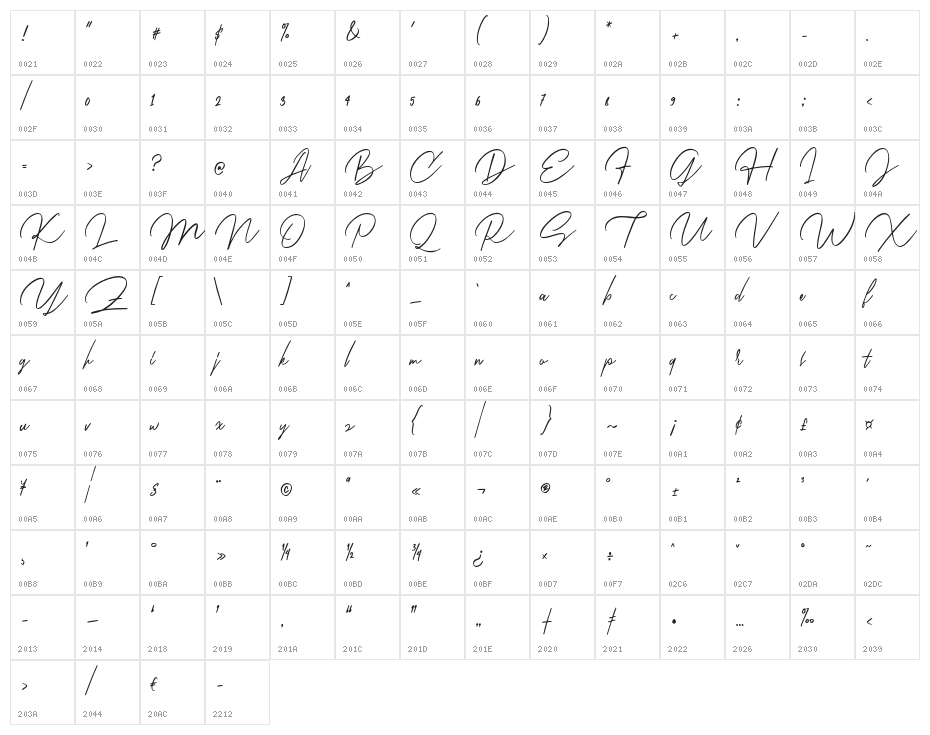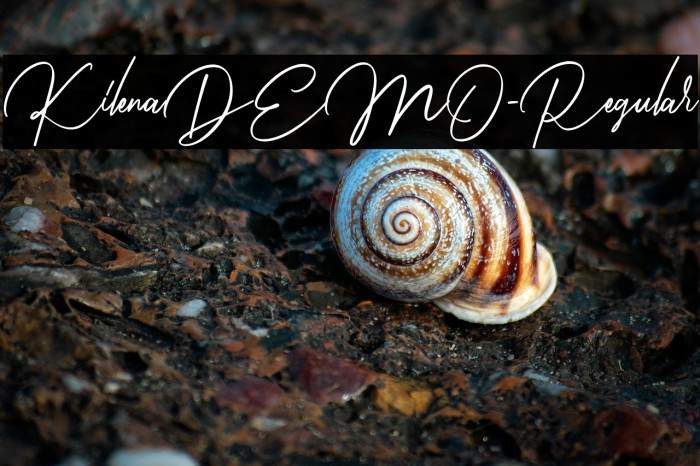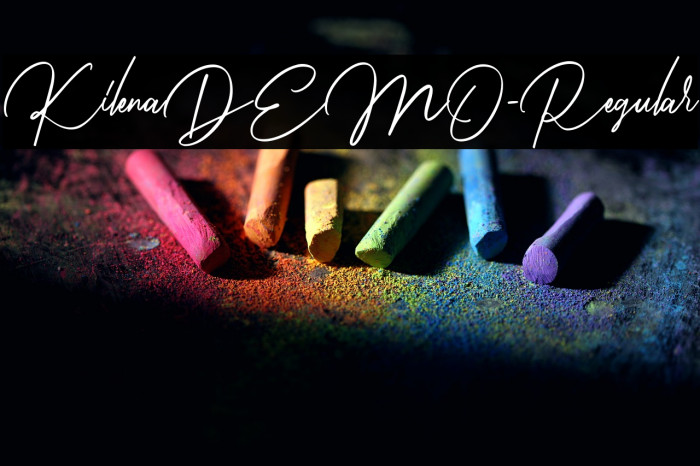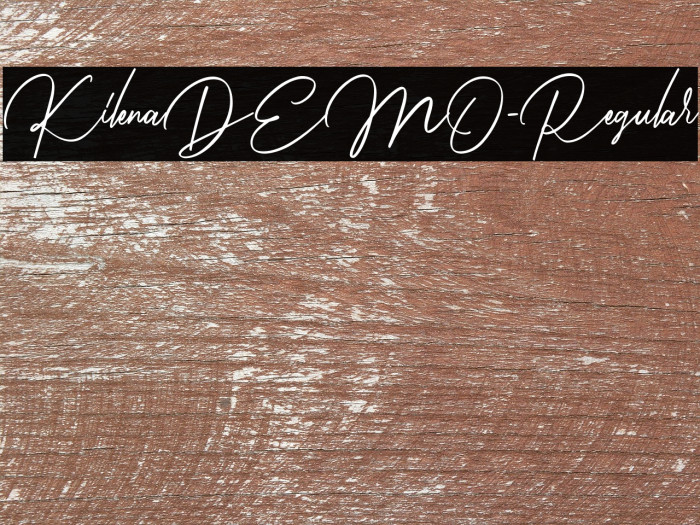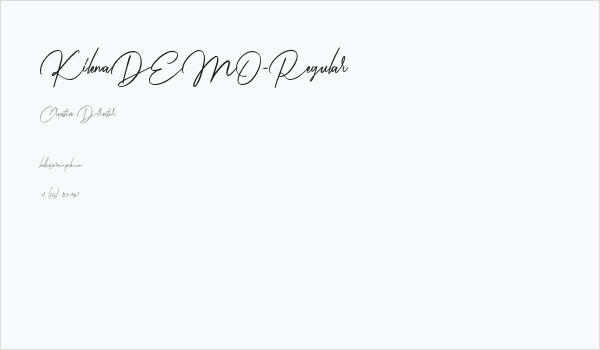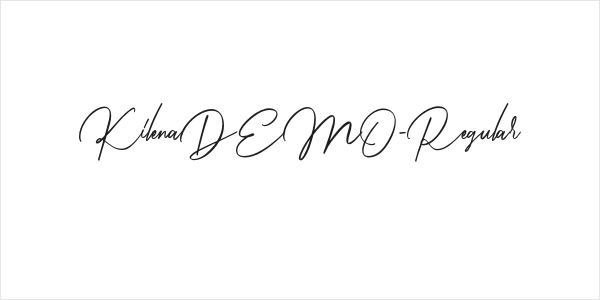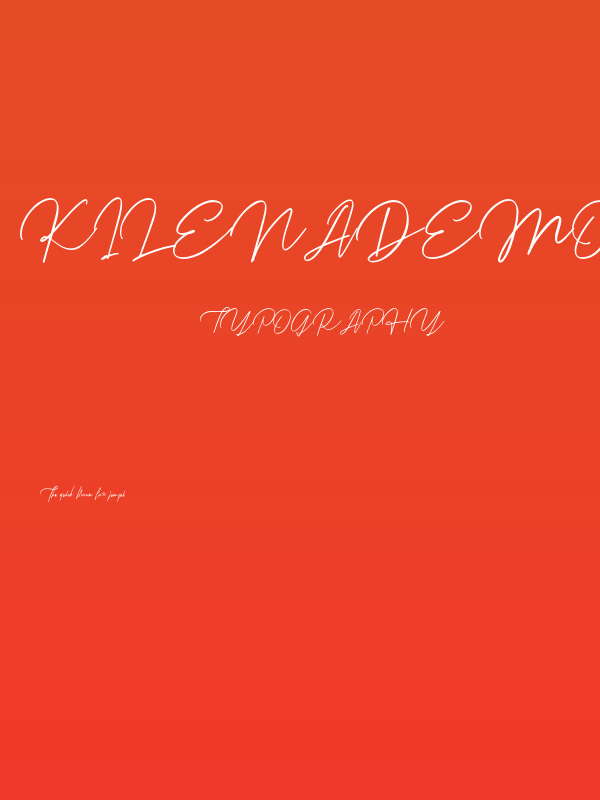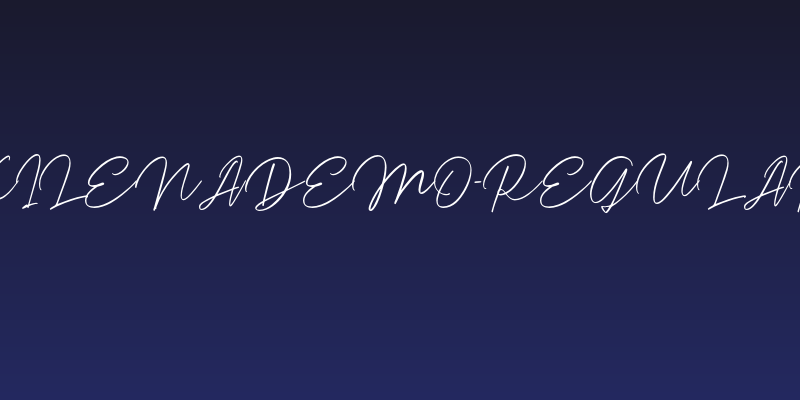
KilenaDEMO-Regular Font
KilenaDEMO-Regular Description
This elegant script font features fluid, connected strokes that mimic the natural flow of handwriting. The uppercase letters are slightly more elaborate, with sweeping curves and a refined aesthetic, while the lowercase letters maintain a consistent, smooth appearance. The numerals are distinct yet harmonize well with the overall style, and the special characters are thoughtfully designed to match the font's graceful look. This font exudes sophistication and charm, making it ideal for projects that require a personal touch or a sense of elegance.
| Use Case | Logos, Invitations, Stationery |
| Proposed Projects | Ideal for wedding invitations, personal branding, elegant logos, and stationery design. |